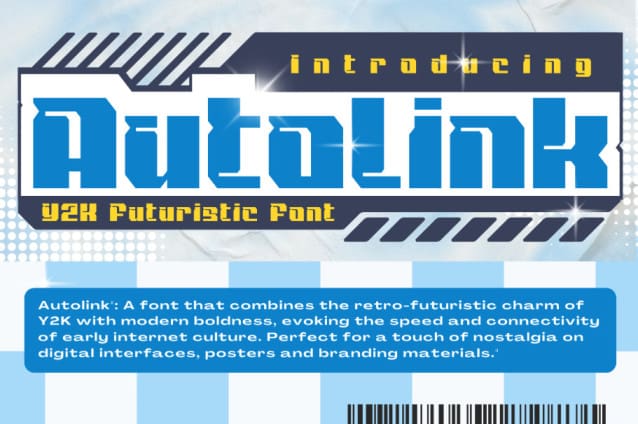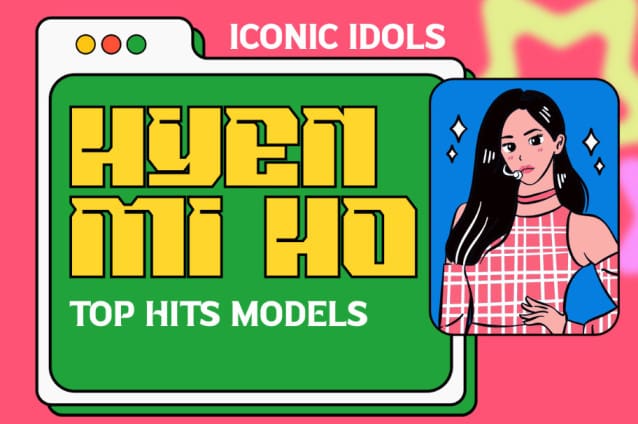
Autolink Y2k Futuristic Font
Autolink Y2k Futuristic Font, a font that channels the futuristic vibes of the Y2K era. With its sleek and dynamic design, this font embodies the cutting-edge aesthetics of the early 2000s. Perfect for projects that seek to evoke a sense of futuristic nostalgia, such as posters, digital artwork, or branding materials. “Autolink” adds a touch of retro-futurism to your text, transporting your audience back to the Y2K era while still feeling fresh and modern.